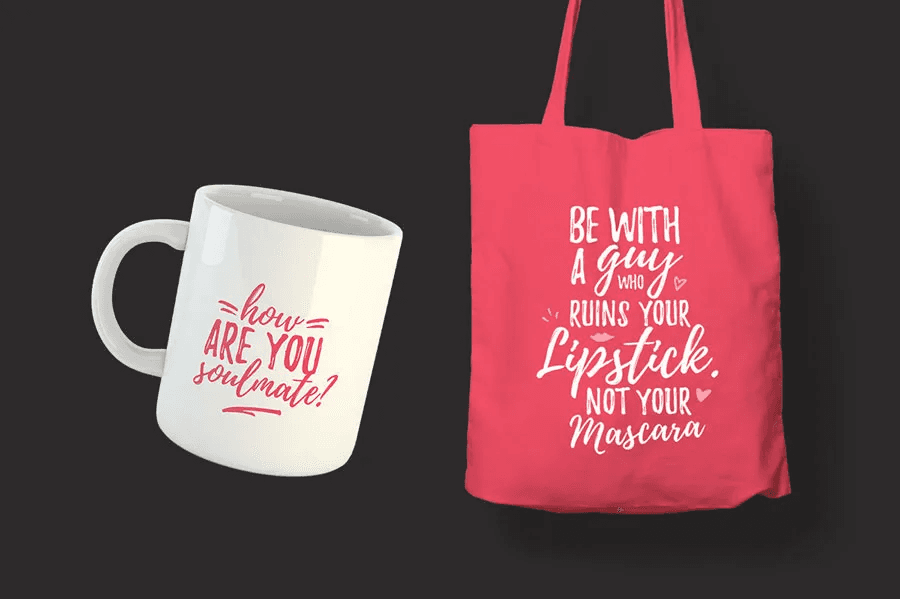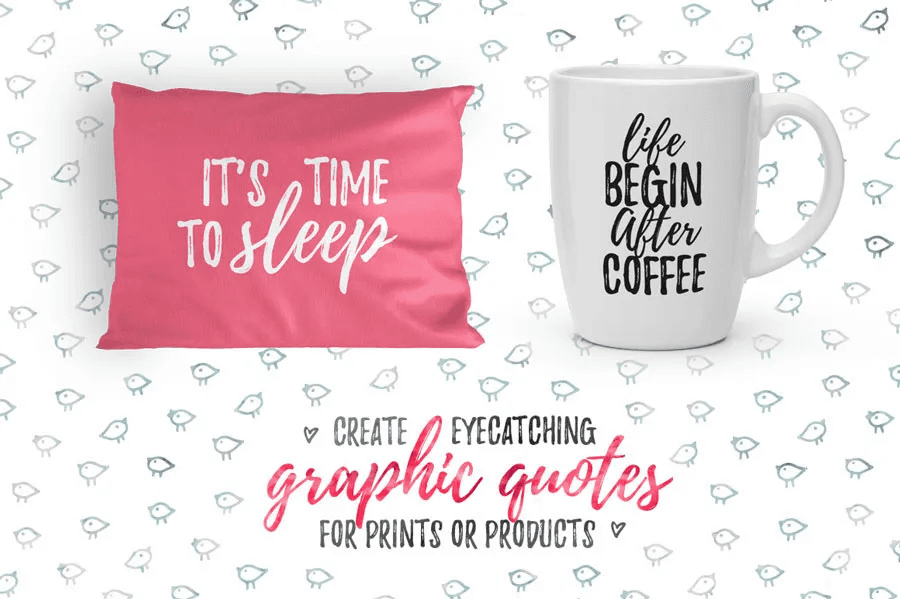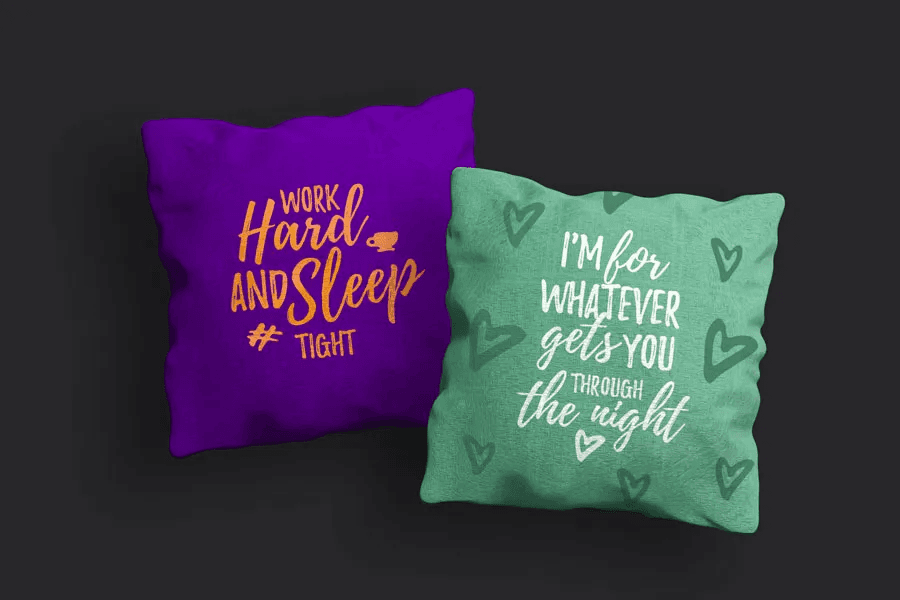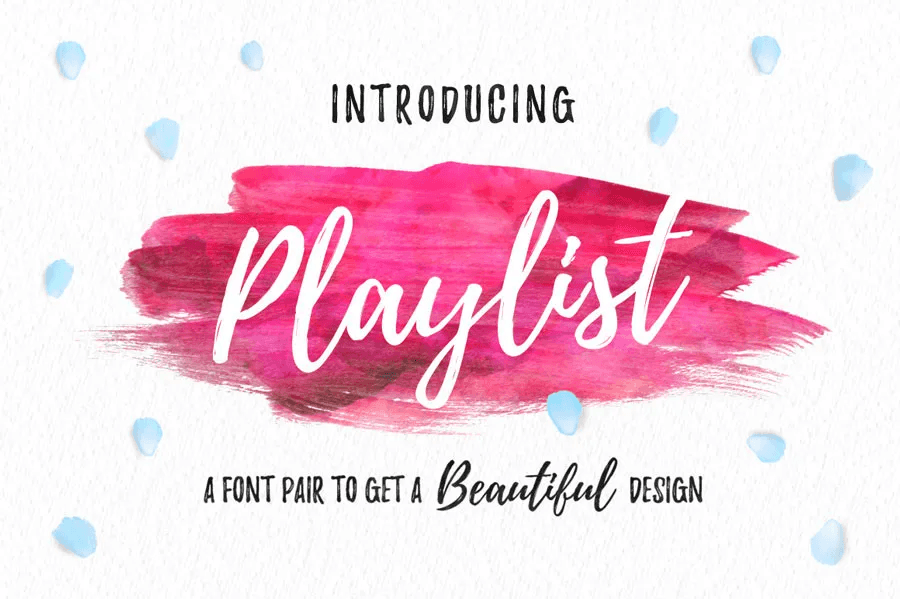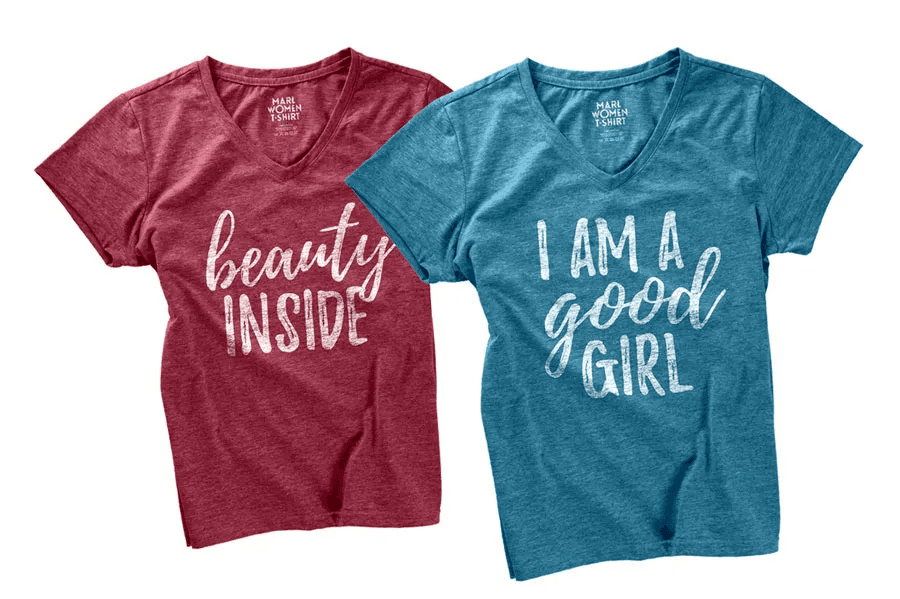
Playlist Script Font Free
Playlist Free Font is a perfectly imperfect hand-drawn font designed with dry brush styles. It contains 3 styles: Script, Caps, and Ornament, which you can combine to create beautiful designs. It can be useful for any project such as a wedding invitation, event flyer, and more. If you want to check more items from this author, please click check out more button.